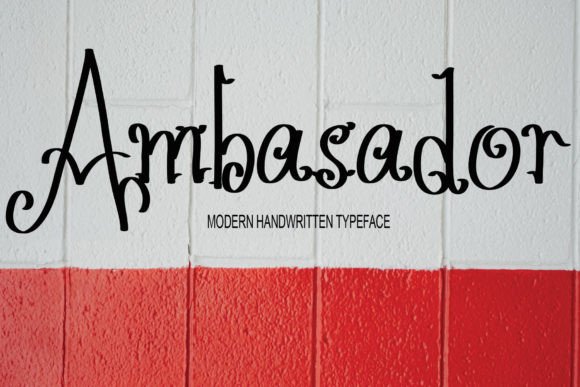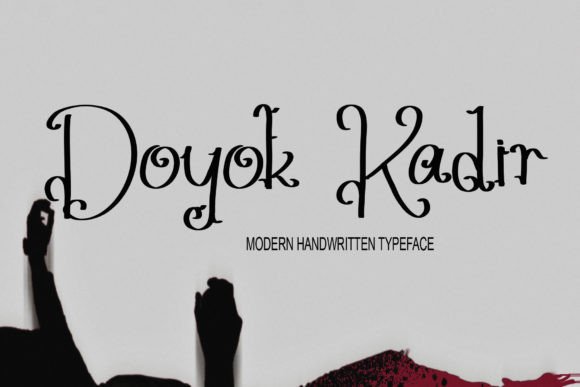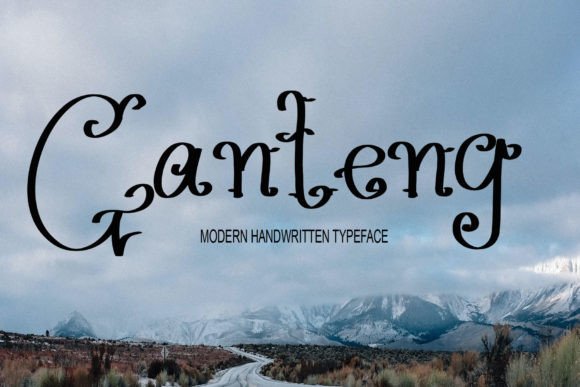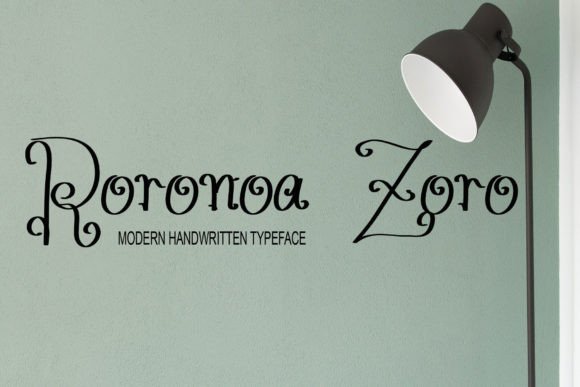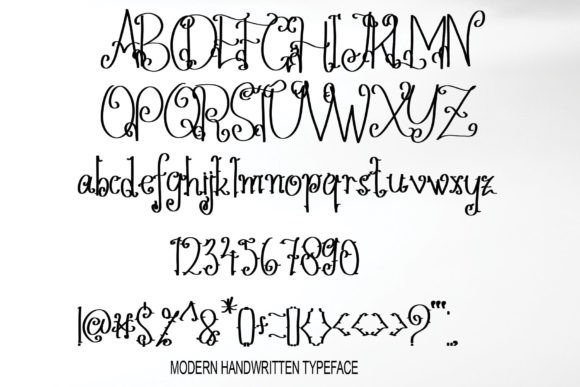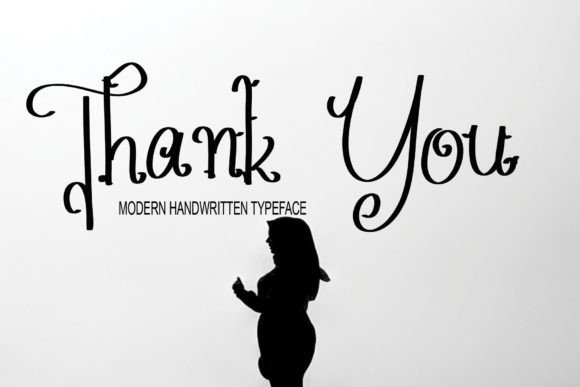
Ambasador Font
About Ambasador Font
“Ambasador” is a handwritten font that was carefully crafted using a tablet. This font, while simple, embodies a sense of meticulous craftsmanship. Its versatility makes it suitable for a wide range of applications, including websites, wedding invitations, business cards, signatures, and various forms of advertising, be it for products or other purposes. Despite its simplicity, “Ambasador” manages to exude a cool and stylish vibe.
The charm of “Ambasador” lies in its simplicity and the care put into its creation. It offers a clean and stylish appearance that can enhance the visual appeal of your projects while maintaining a sense of understated elegance.
One of the standout qualities of “Ambasador” is its adaptability. Whether you’re using it for digital projects like websites or incorporating it into print materials such as wedding invitations and business cards, this font seamlessly fits into your creative vision.
Despite its simplicity, “Ambasador” manages to strike a balance between being cool and stylish. This makes it an excellent choice for a variety of design needs where you want a font that is both straightforward and visually appealing.
In summary, “Ambasador” is more than just a font; it’s a versatile and carefully crafted creative tool that can enhance the look of your projects with its simple yet stylish script. Whether you’re a professional designer seeking a font that combines simplicity with style or an enthusiast passionate about creating visually appealing content, “Ambasador” is here to make your designs shine with a cool and stylish touch. Embrace the versatility of “Ambasador,” and watch your creativity flourish with simplicity and elegance.